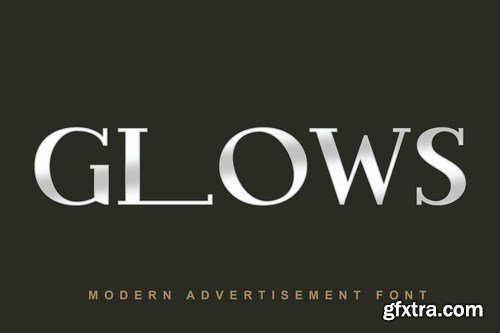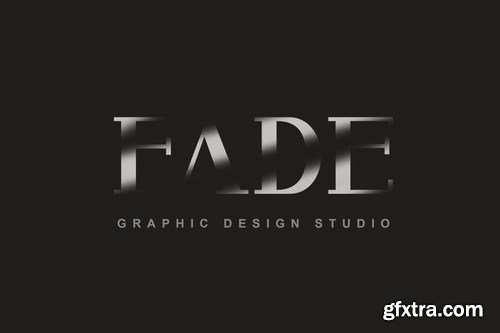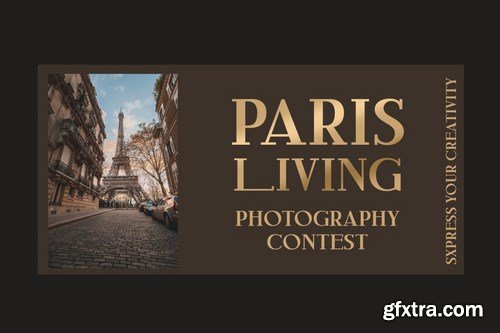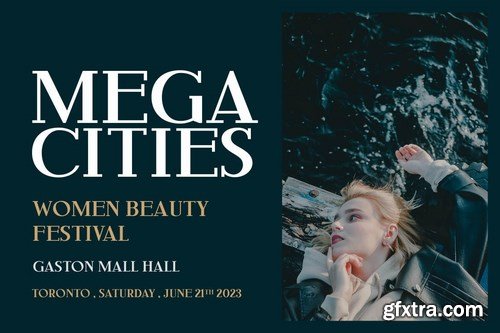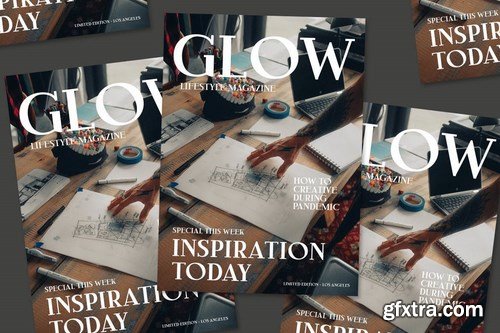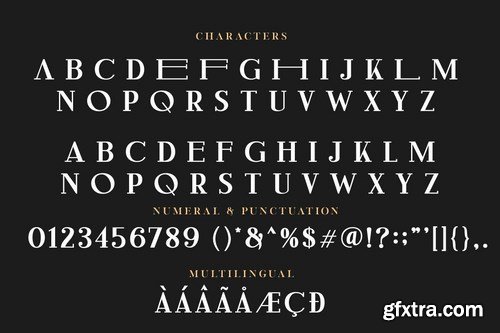
Glows is elegant modern serif font .It can easily be matched to an incredibly large set of projects for your company/ corporate, so add it to your creative ideas and notice how it makes them stand out!